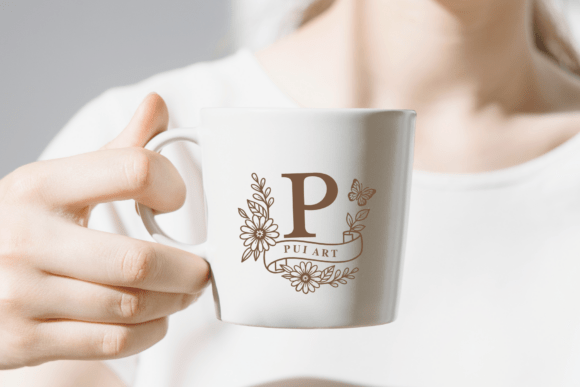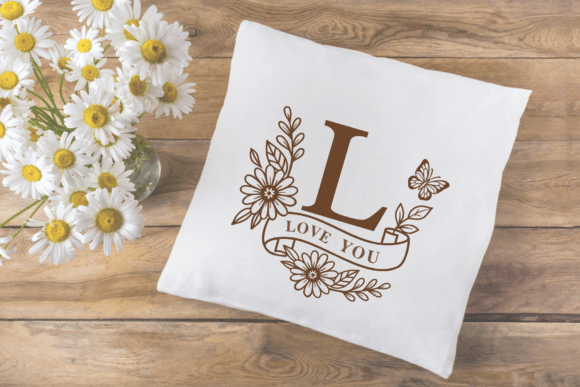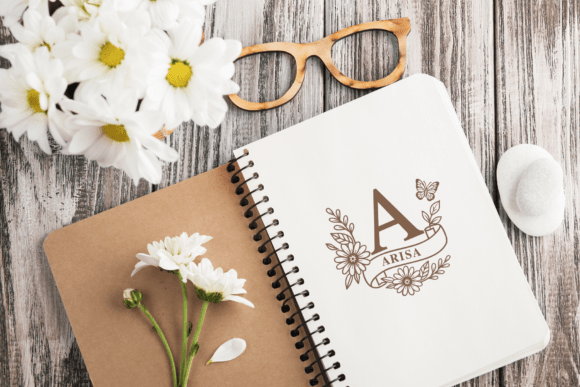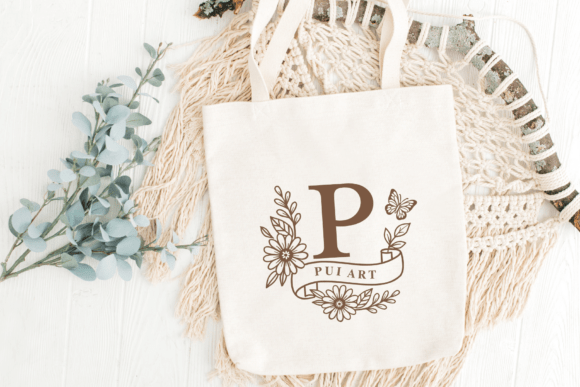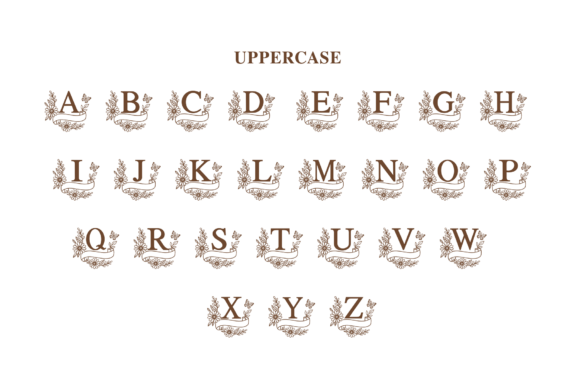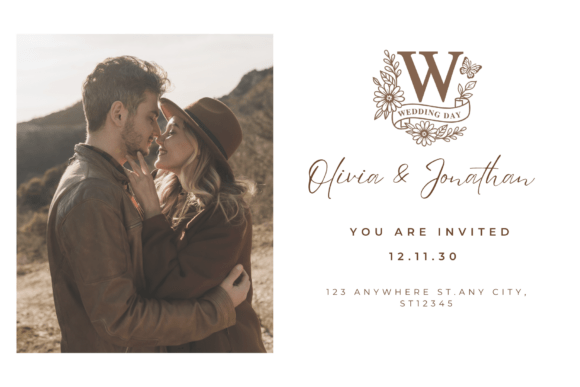
Daisy Flower Monogram Font: Elevate Your Designs with Floral Elegance
Are you a designer or crafter looking for a beautiful and elegant font to add a touch of romance to your projects? Look no further than the Daisy Flower Monogram Font! This stunning decorative font features intricate daisy and leaf ornaments, perfect for creating wedding invitations, logos, stationery, greeting cards, and branding projects that exude soft, romantic charm.
What is Daisy Flower Monogram Font?
Daisy Flower Monogram Font is a unique and exquisite floral monogram font that combines the simplicity of a monogram with the elegance of daisy flowers. The font boasts beautiful, hand-crafted designs featuring daisies and leaves, carefully intertwined to create a charming and timeless look. With its delicate and feminine touch, this font is sure to capture the hearts of designers and crafters who love floral elegance.
Key Features of Daisy Flower Monogram Font
- Elegant Daisy and Leaf Ornaments: The font features beautiful, intricate designs of daisies and leaves, adding a touch of elegance to your projects.
- Perfect for Wedding Invitations: The romantic and soft design of the font makes it ideal for wedding invitations, adding a personal and loving touch to your wedding stationery.
- Versatile and Customizable: The font can be used for a variety of design projects, including logos, stationery, greeting cards, and branding projects, allowing you to add your personal touch.
- Timeless and Charming: The font’s classic design ensures that your projects will remain timeless and charming for years to come.
How to Use Daisy Flower Monogram Font
Using Daisy Flower Monogram Font is easy and straightforward. Here are a few ways you can incorporate it into your designs:
- Wedding Invitations: Add a personal touch to your wedding invitations with this beautiful font, creating a romantic and memorable impression on your guests.
- Logos and Branding: Use the font to create elegant logos and branding materials that reflect your company’s values and style.
- Stationery and Greeting Cards: Add a touch of elegance to your stationery and greeting cards with this beautiful font, making them perfect for special occasions.
Benefits of Using Daisy Flower Monogram Font
By using Daisy Flower Monogram Font, you can:
- Elevate Your Designs: Add a touch of elegance and sophistication to your designs, making them stand out from the crowd.
- Save Time: The font’s versatility and customizability save you time and effort in creating unique designs.
- Impress Your Clients: Use the font to create stunning designs that will impress your clients and leave a lasting impression.
Tips and Tricks for Using Daisy Flower Monogram Font
Here are a few tips and tricks to help you get the most out of Daisy Flower Monogram Font:
- Experiment with Colors: Try out different colors and combinations to find the perfect match for your design.
- Mix and Match: Combine the font with other design elements, such as images and graphics, to create a unique look.
- Pay Attention to Details: Take the time to adjust the font size, spacing, and alignment to ensure a perfect fit with your design.
Daisy Flower Monogram Font is a beautiful and elegant decorative font that can add a touch of romance and sophistication to your designs. With its intricate daisy and leaf ornaments, versatility, and customizability, this font is perfect for designers and crafters who love floral elegance. Whether you’re creating wedding invitations, logos, stationery, or greeting cards, this font is sure to elevate your designs and leave a lasting impression.